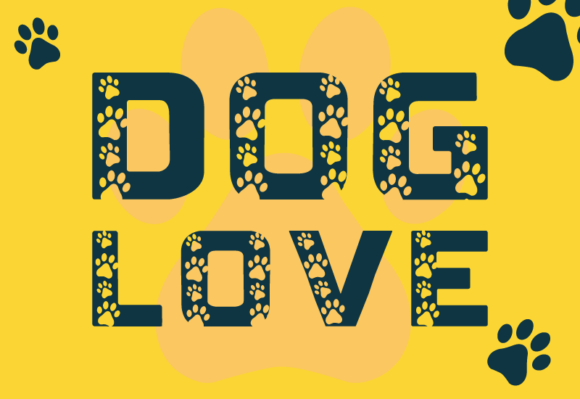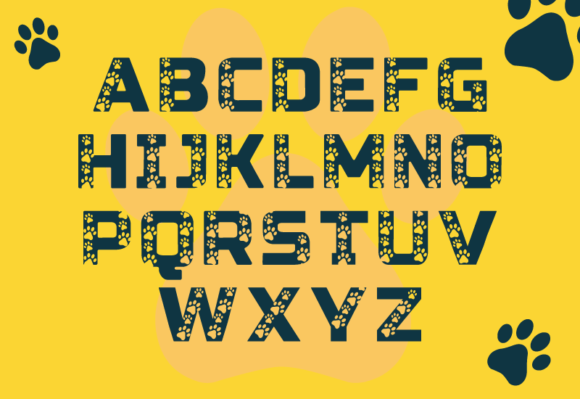
Introducing Dog Love Font: The Perfect Blend of Simplicity and Contemporary Style
In the world of typography, a good font can make all the difference in the success of a design project. For designers and crafters looking for a modern and versatile typeface, look no further than Dog Love Font. This vibrant and decorative font is perfect for ambitious logos, innovative brand designs, striking headlines, and various other creative endeavors.
What Makes Dog Love Font Stand Out?
Dog Love Font is a unique blend of simplicity and contemporary style, making it an impeccable fit for designers who want to create a lasting impression. Its modern and clean lines make it perfect for a wide range of applications, from logos and branding to packaging and advertising. The font’s versatility is one of its standout features, allowing designers to use it in various contexts and still achieve exceptional results.
Key Features of Dog Love Font
- Modern and Decorative: Dog Love Font boasts a fresh and contemporary look that’s sure to grab attention.
- Versatile: Its clean lines and simple shapes make it perfect for a wide range of applications, from logos and branding to packaging and advertising.
- Exceptional Performance: Dog Love Font delivers exceptional performance, producing transformative outcomes that will leave you in awe.
Why Choose Dog Love Font?
There are many reasons why designers and crafters should consider Dog Love Font for their next project. Here are just a few:
- Unique and Memorable: Dog Love Font’s unique blend of simplicity and contemporary style makes it a great choice for designers who want to create a lasting impression.
- Easy to Read: The font’s clean lines and simple shapes make it easy to read, even at small sizes.
- Highly Versatile: Dog Love Font can be used in a wide range of applications, from logos and branding to packaging and advertising.
How to Use Dog Love Font in Your Projects
Using Dog Love Font in your projects is easy. Here are a few tips to get you started:
- Pair it with Other Fonts: Dog Love Font pairs well with other fonts, making it easy to create a unique and memorable design.
- Experiment with Colors: The font’s clean lines and simple shapes make it perfect for experimenting with different colors and gradients.
- Use it in Headlines: Dog Love Font is perfect for headlines and titles, making it a great choice for designers who want to create a striking impression.
In conclusion, Dog Love Font is a modern and versatile typeface that’s perfect for designers and crafters looking for a unique and memorable font. Its blend of simplicity and contemporary style makes it an impeccable fit for ambitious logos, innovative brand designs, striking headlines, and various other creative endeavors. With its exceptional performance and highly versatile design, Dog Love Font is sure to become a favorite among designers and crafters.